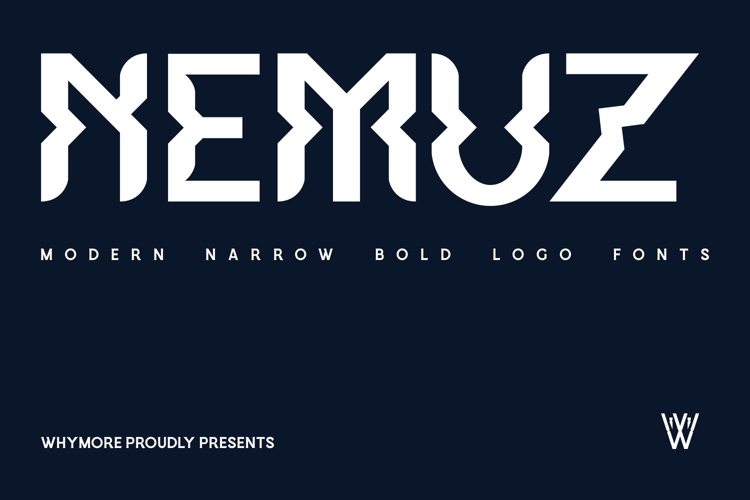
Nemuz Editoral Bold Logo Font
Nemuz is a modern narrow bold typeface built for powerful logos and striking headlines.
Its sharp geometry and condensed structure make it perfect for branding, fashion visuals, posters, and high-impact designs.
This typeface works especially well for fashion, streetwear, sports branding, posters, editorials, and modern advertising layouts.
Key Features:
- Modern narrow bold display font
- Strong geometric and sharp letterforms
- Uppercase character set
- Numbers, punctuation, and symbols included
- Designed for logos, headlines, and branding
Perfect For:
- Logo & wordmark design
- Fashion & streetwear branding
- Posters & advertising
- Headlines & editorial layouts
- Social media visuals
- Modern brand identities
Nemuz delivers bold presence — clean, confident, and ready for modern branding.